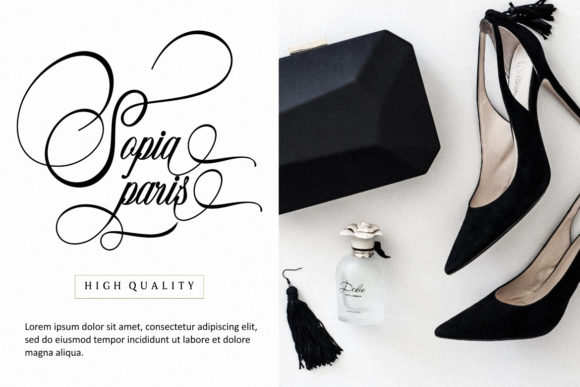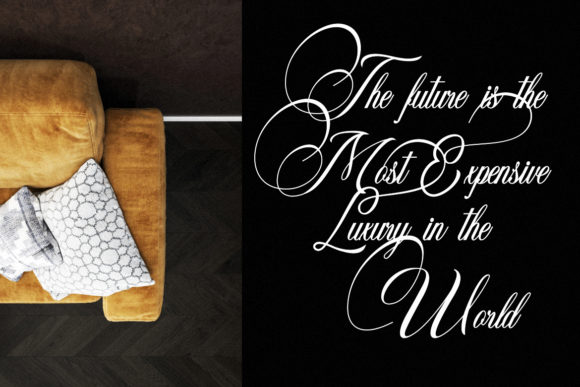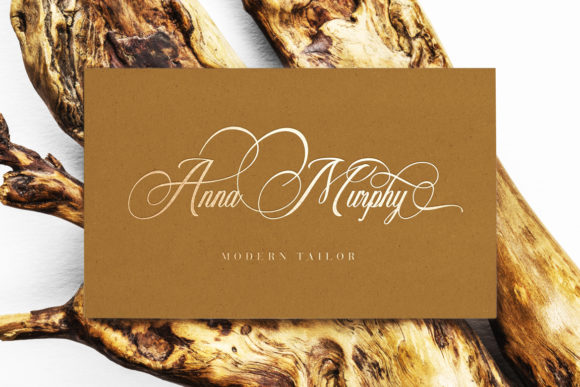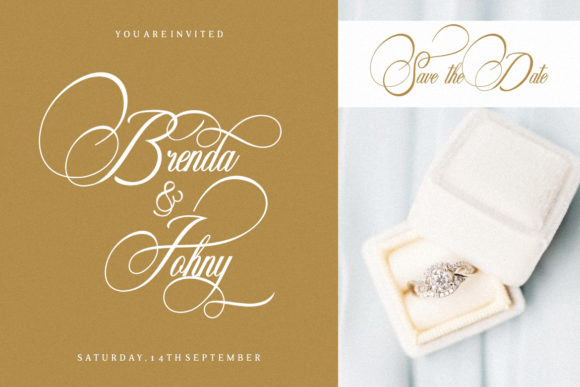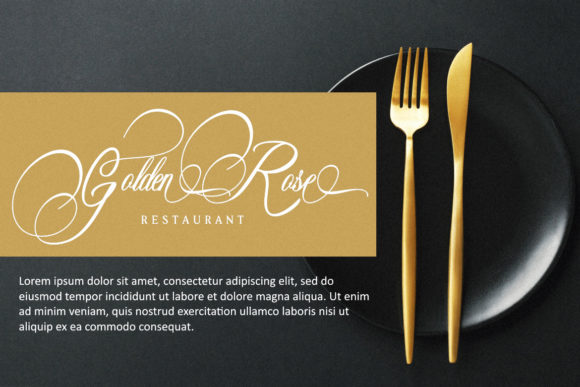
Amorista Font
About Amorista Font
Amorista is a luxurious and sophisticated script with gorgeous swashes.
This font is PUA encoded which means you can access all of the magical glyphs and swashes with ease! It also features a wealth of special features including alternate glyphs and ligatures.